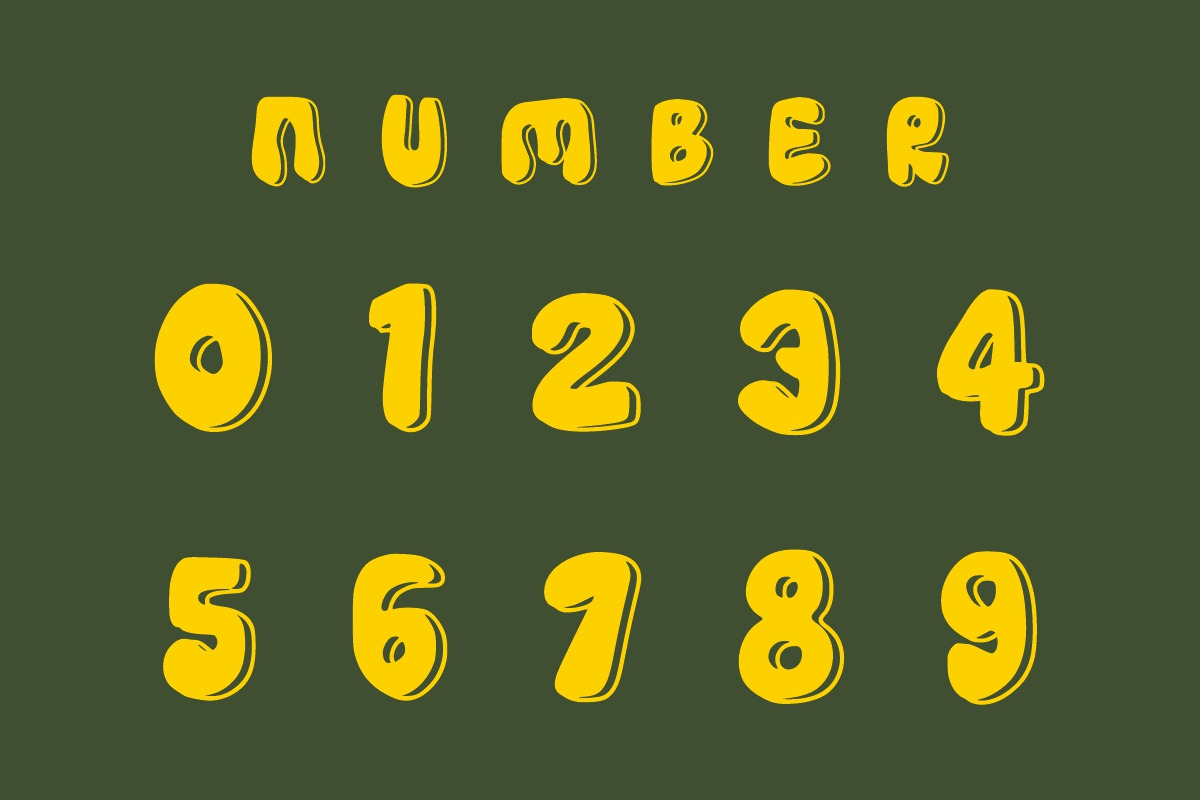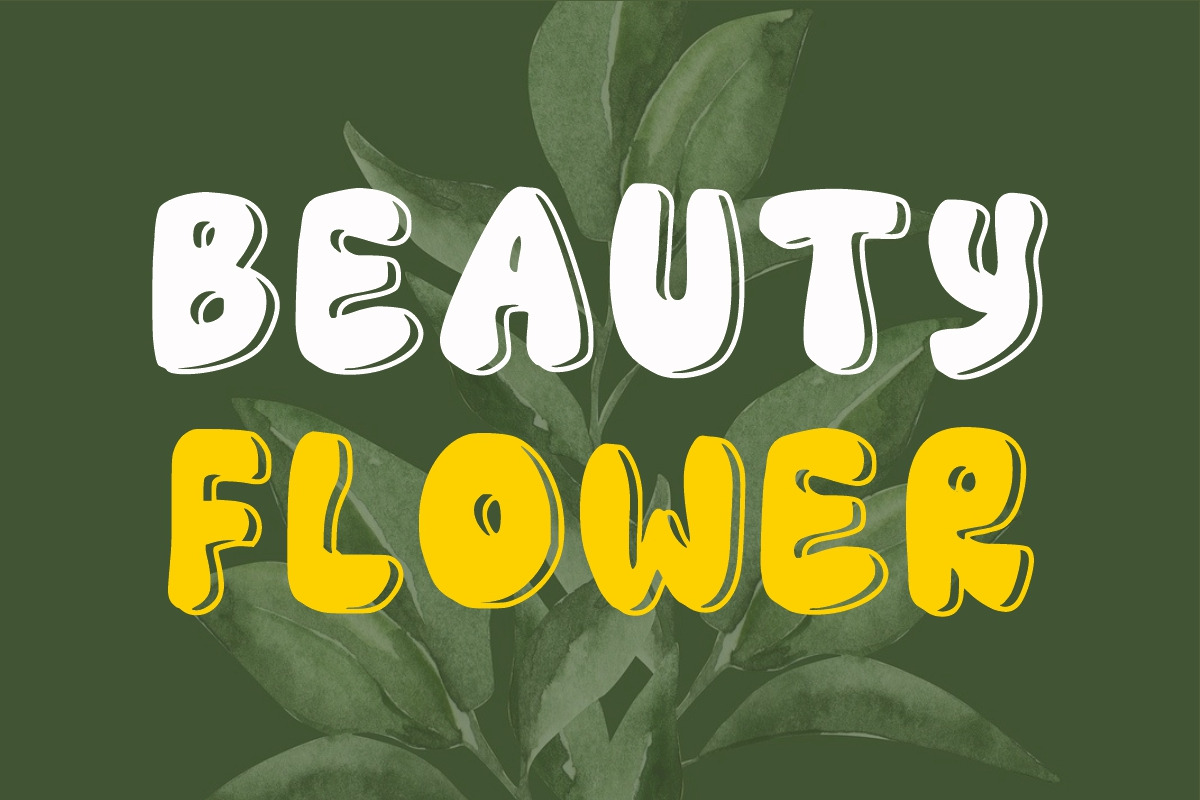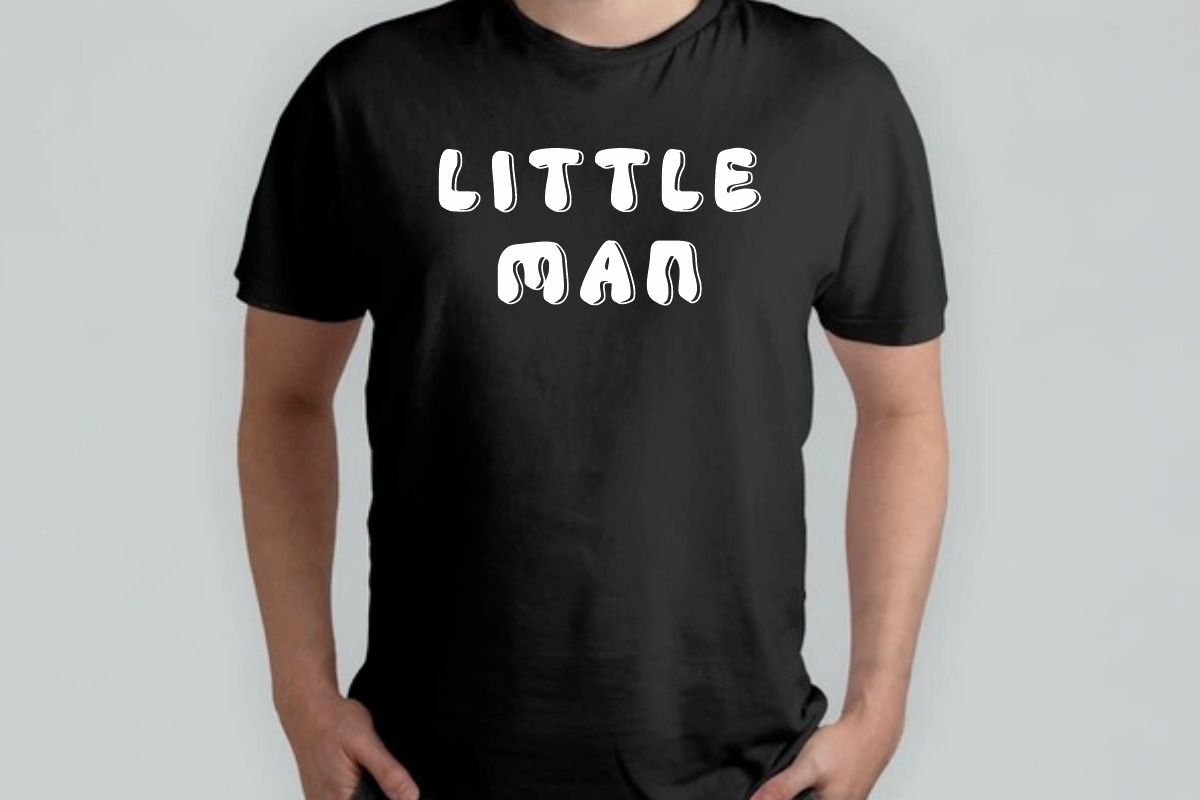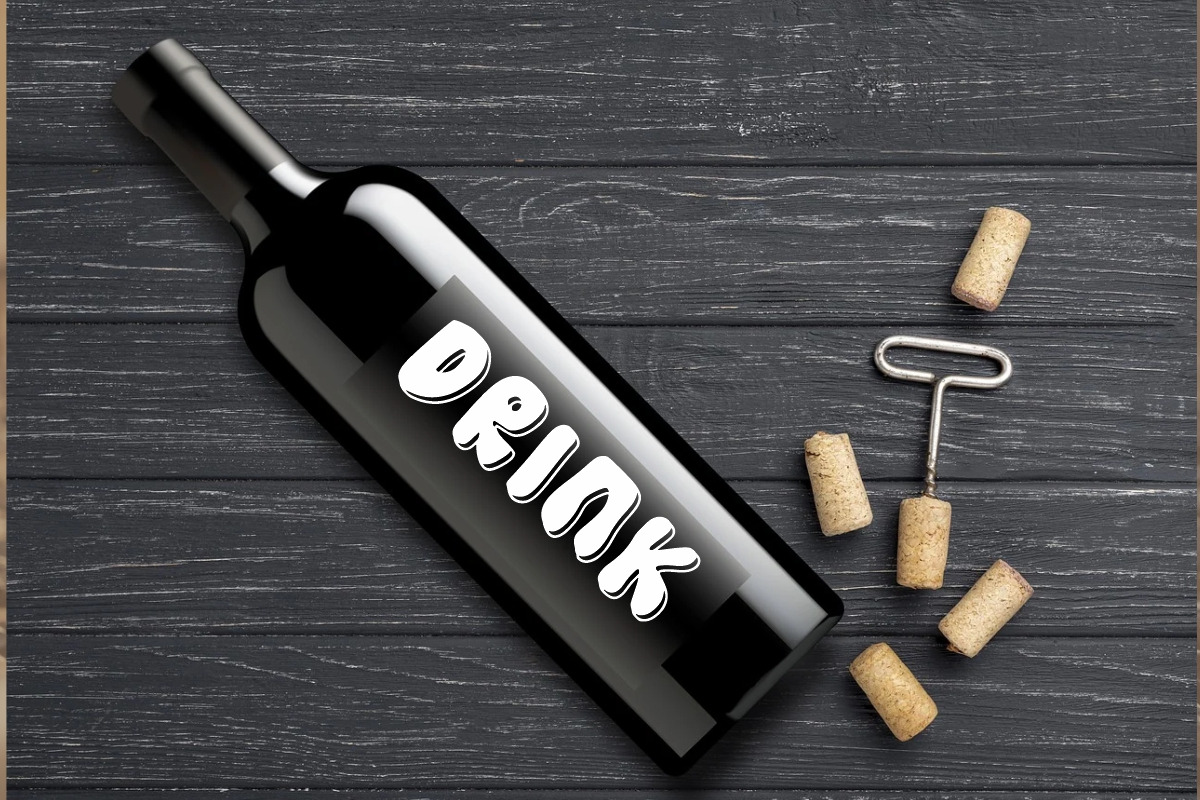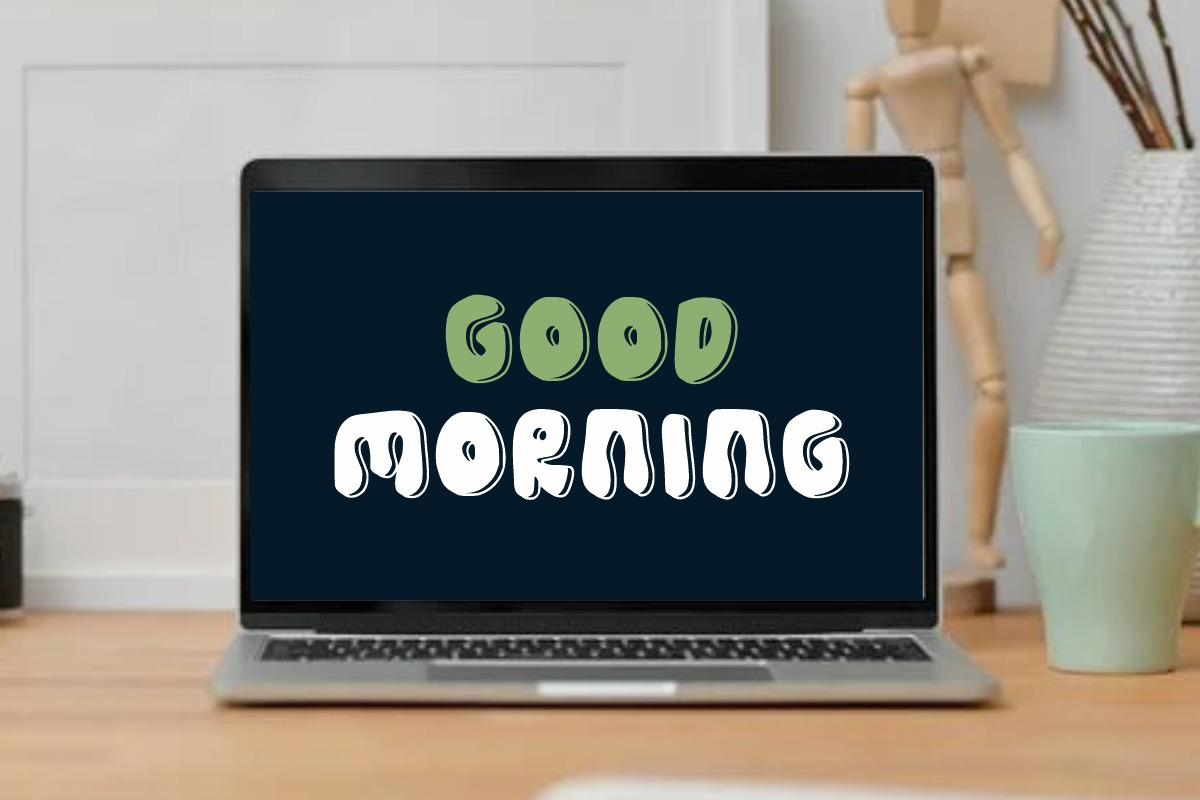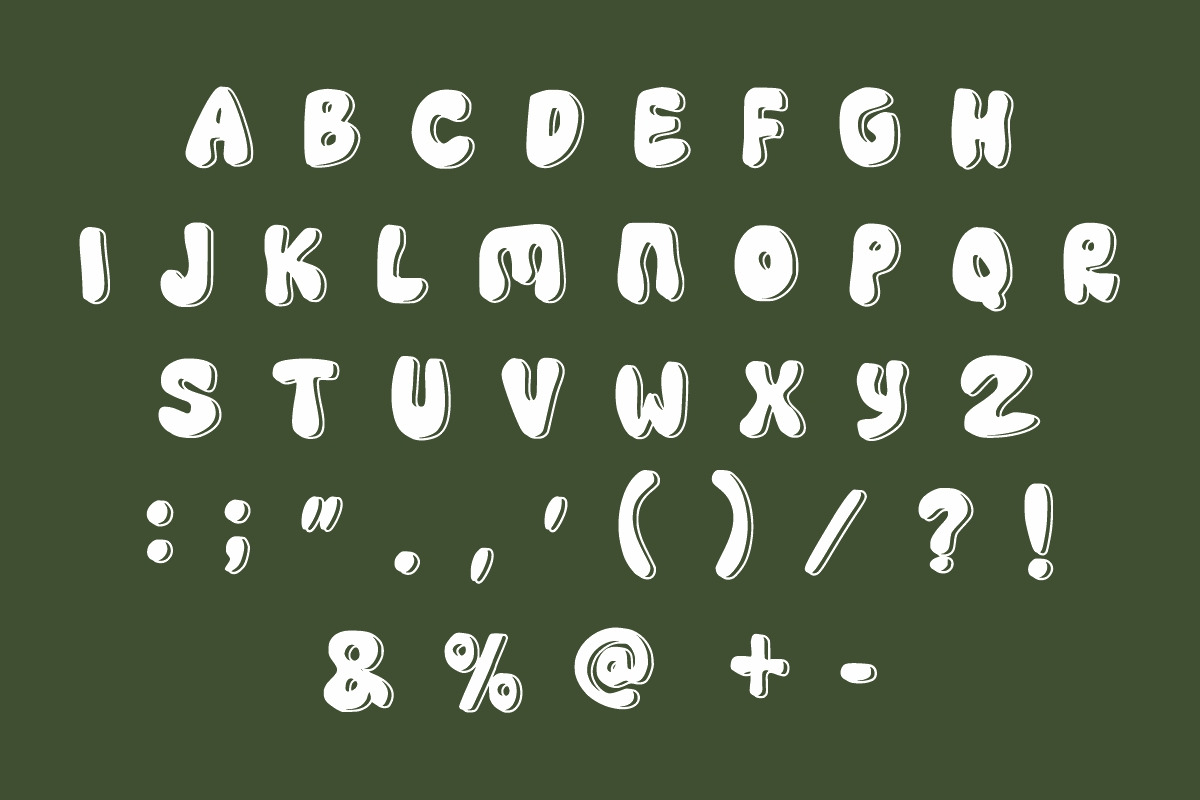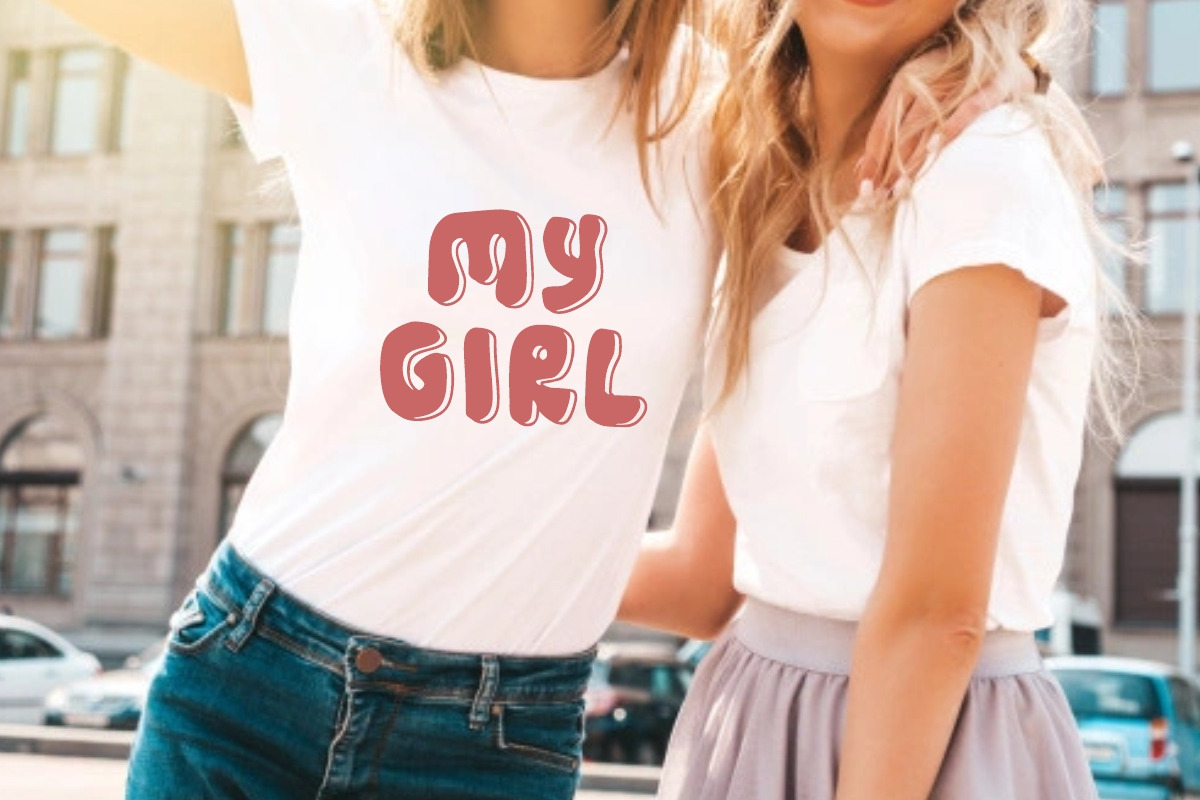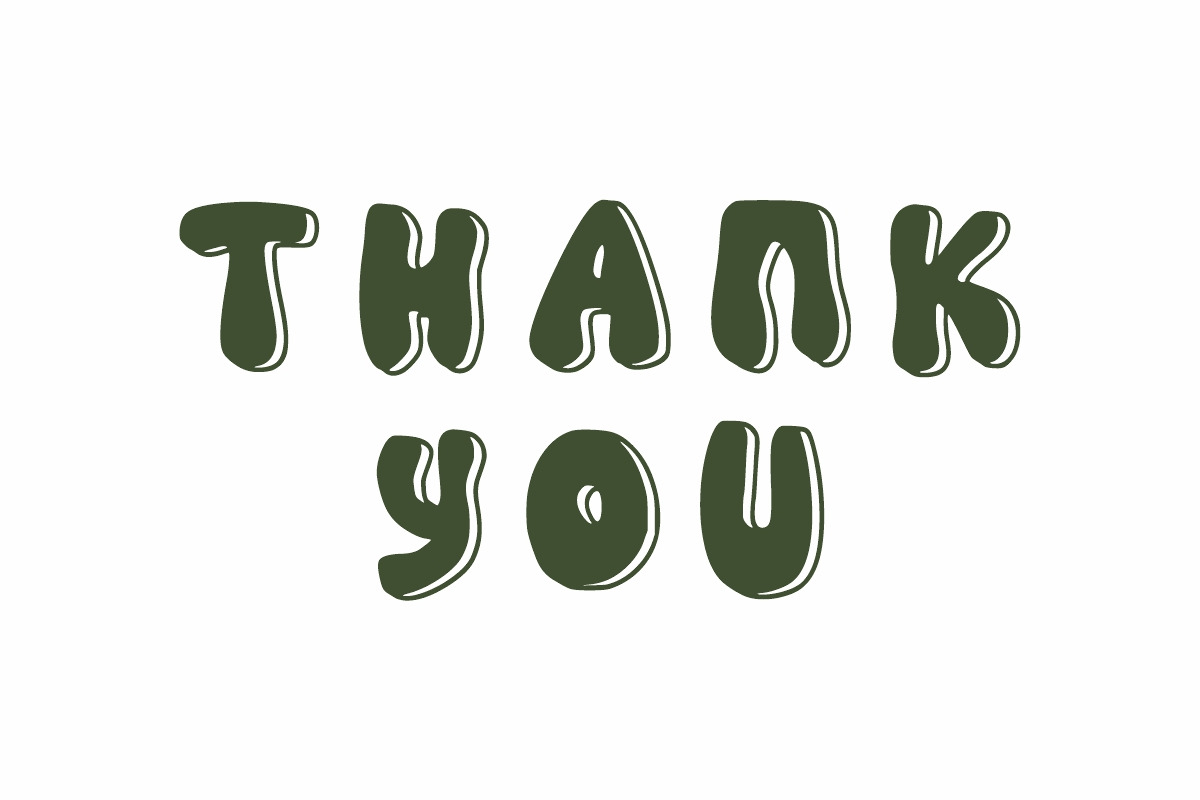
Retro Cooper
Retro Cooper is a retro, groovy, display font. It features a dynamic effect and a unique charm. It is perfect for craft, mug, gift, headlines, banner events, kids posters, school posters, text effects, templates, logos, or name card